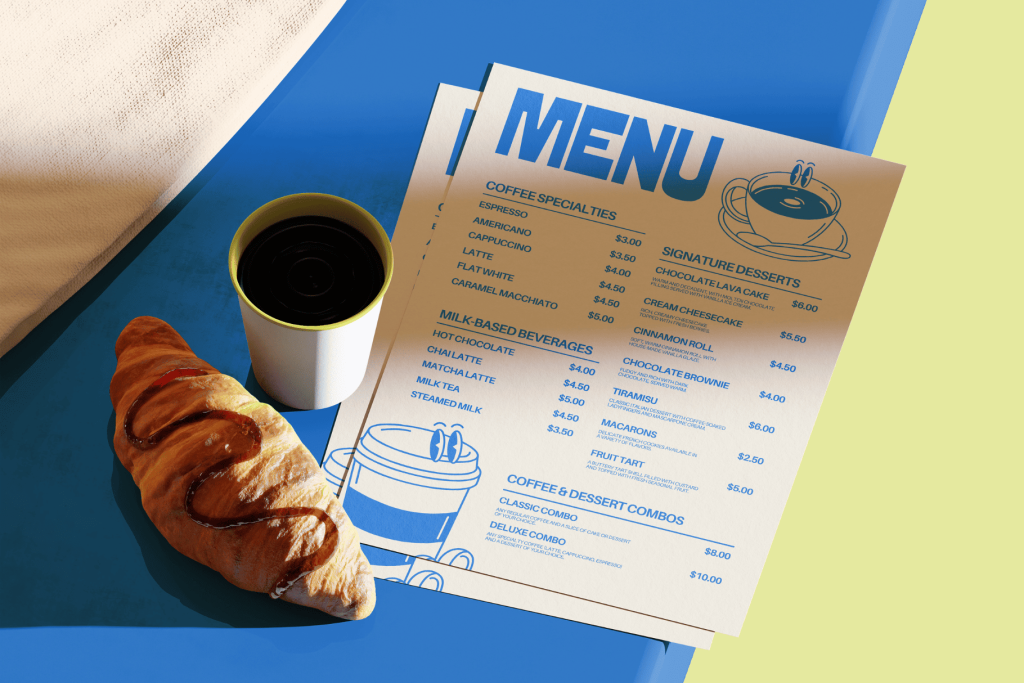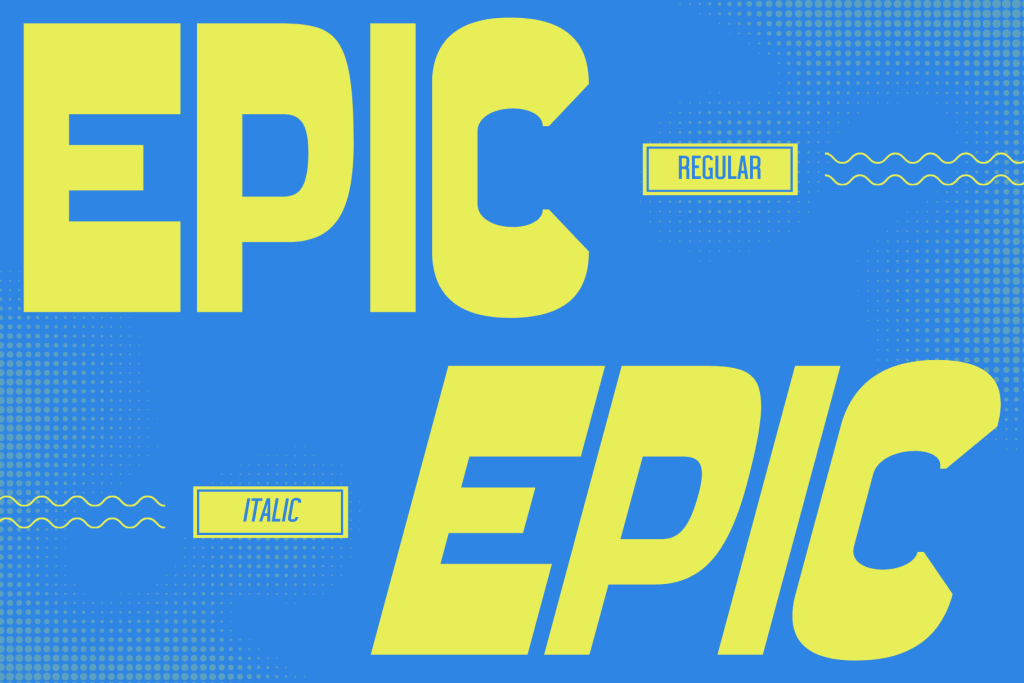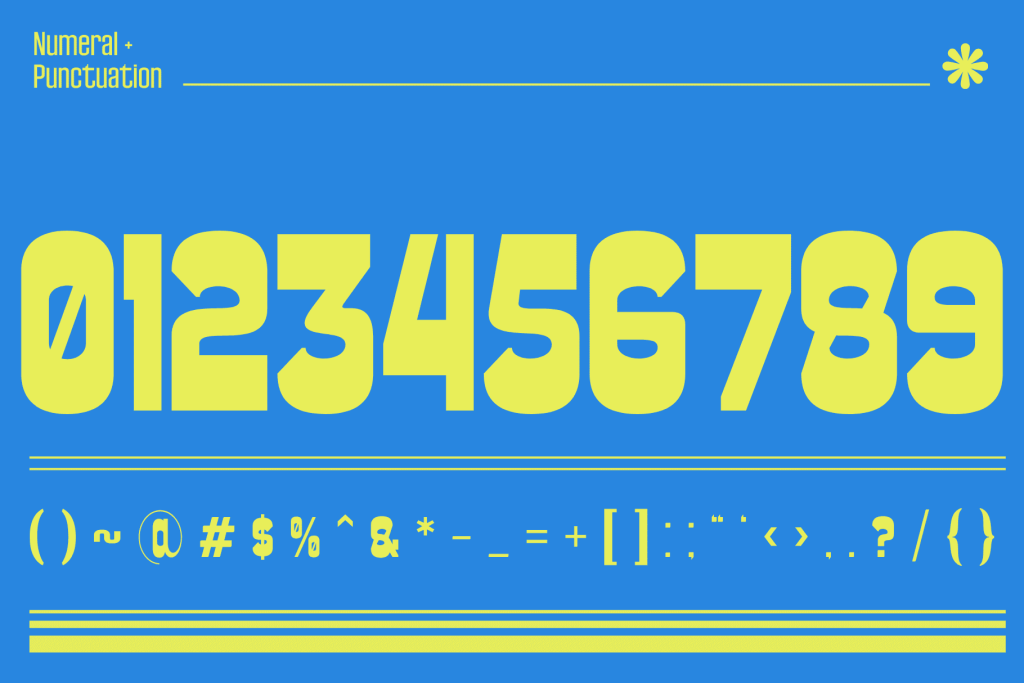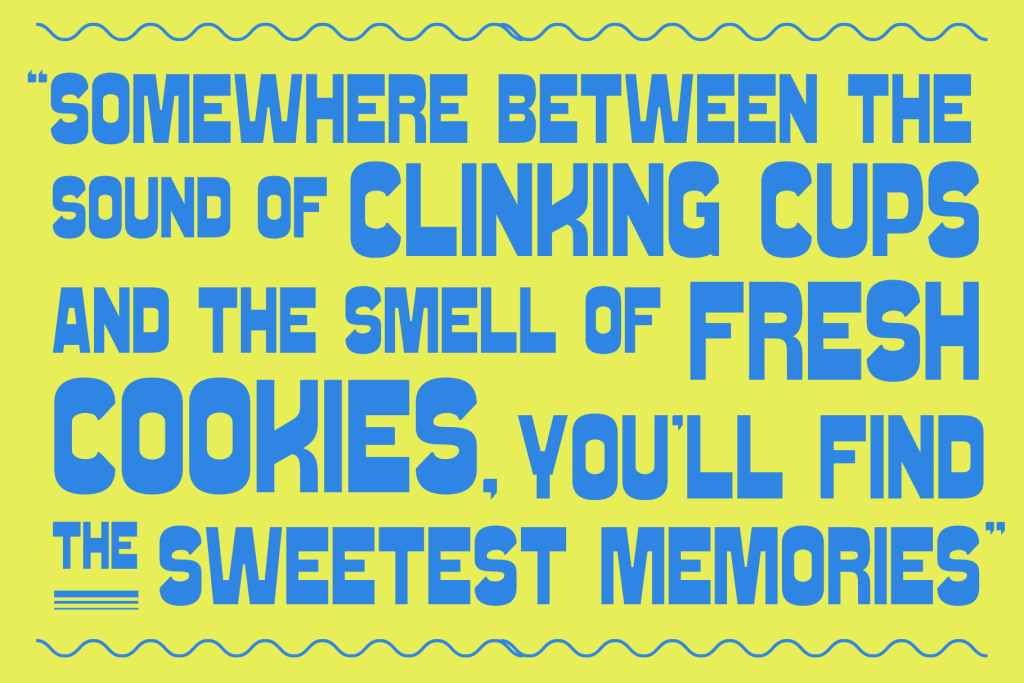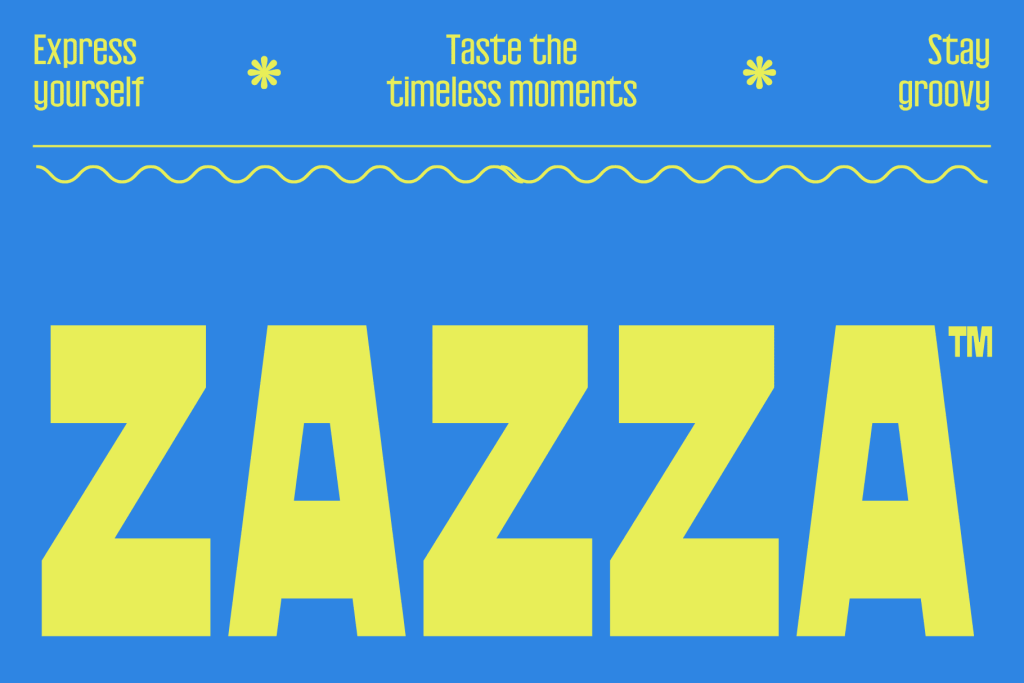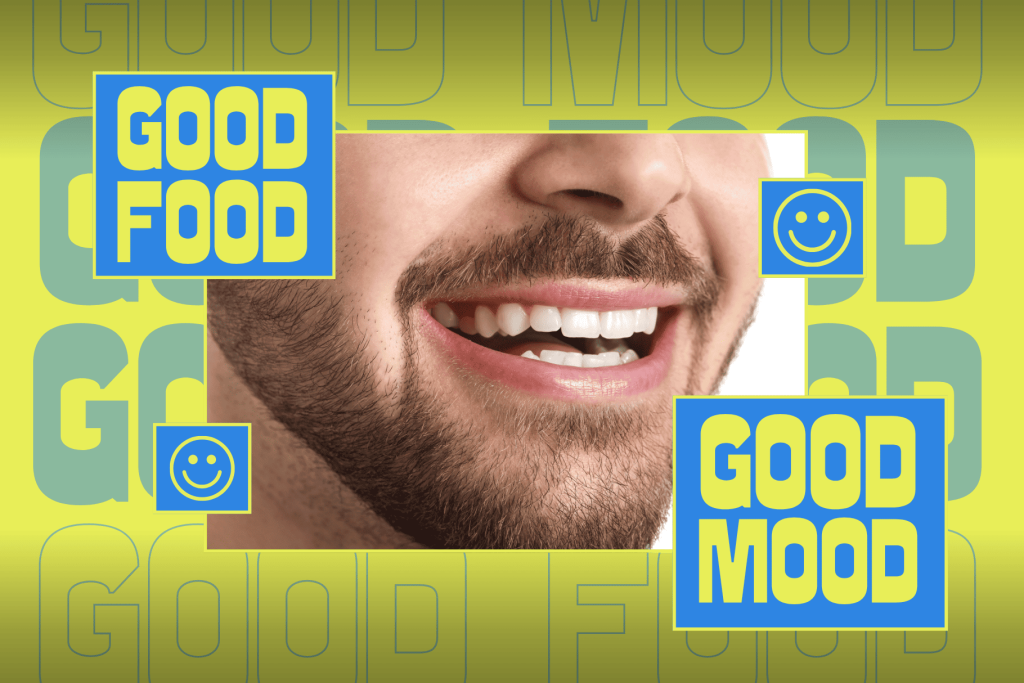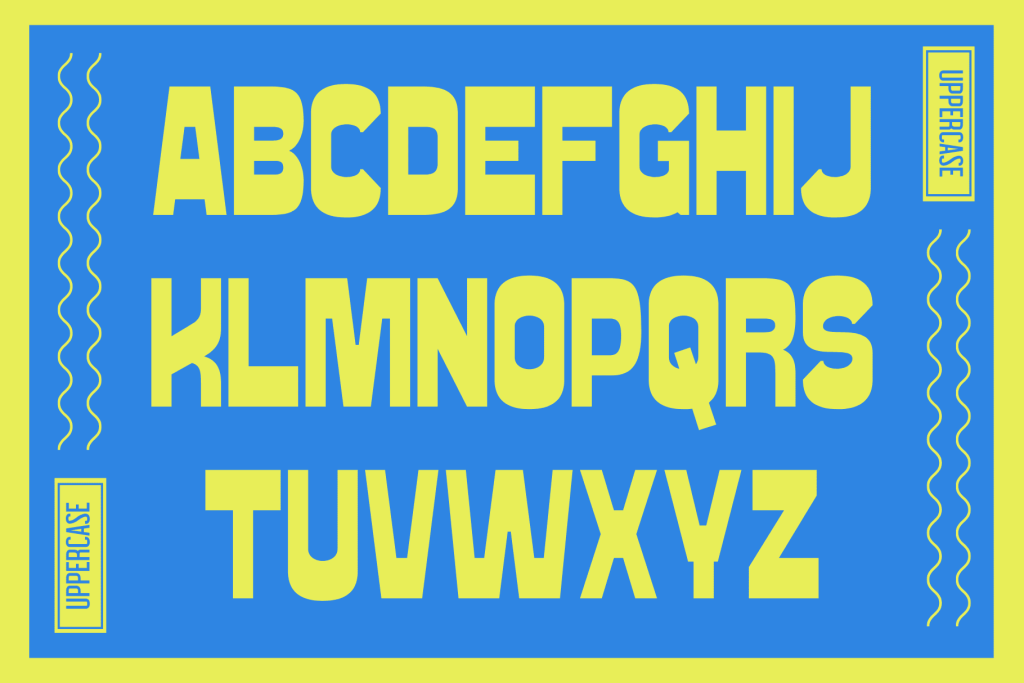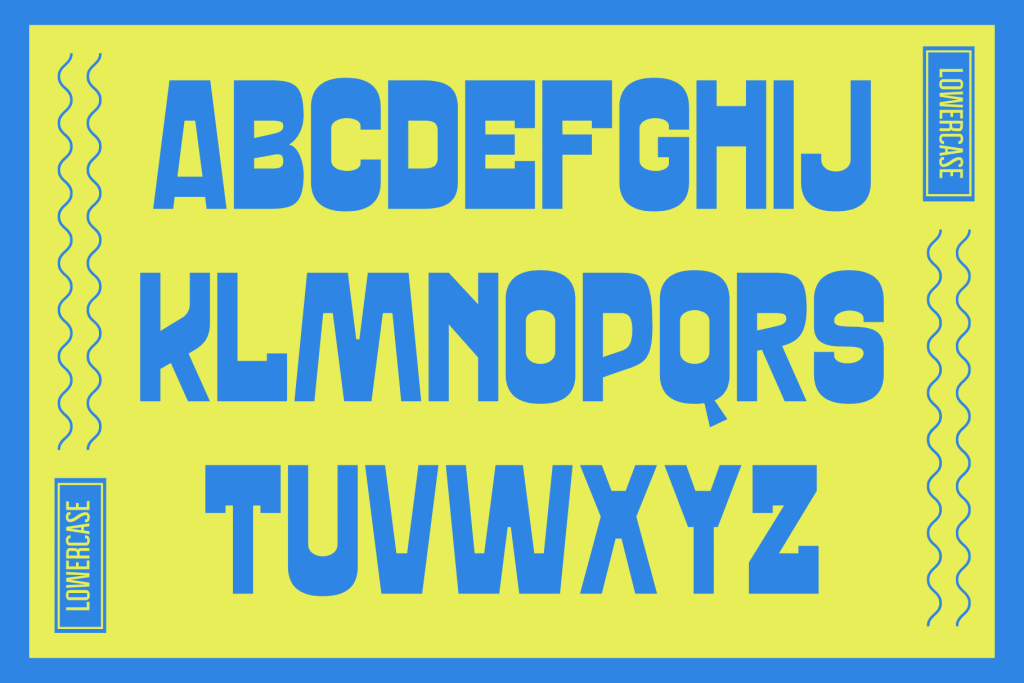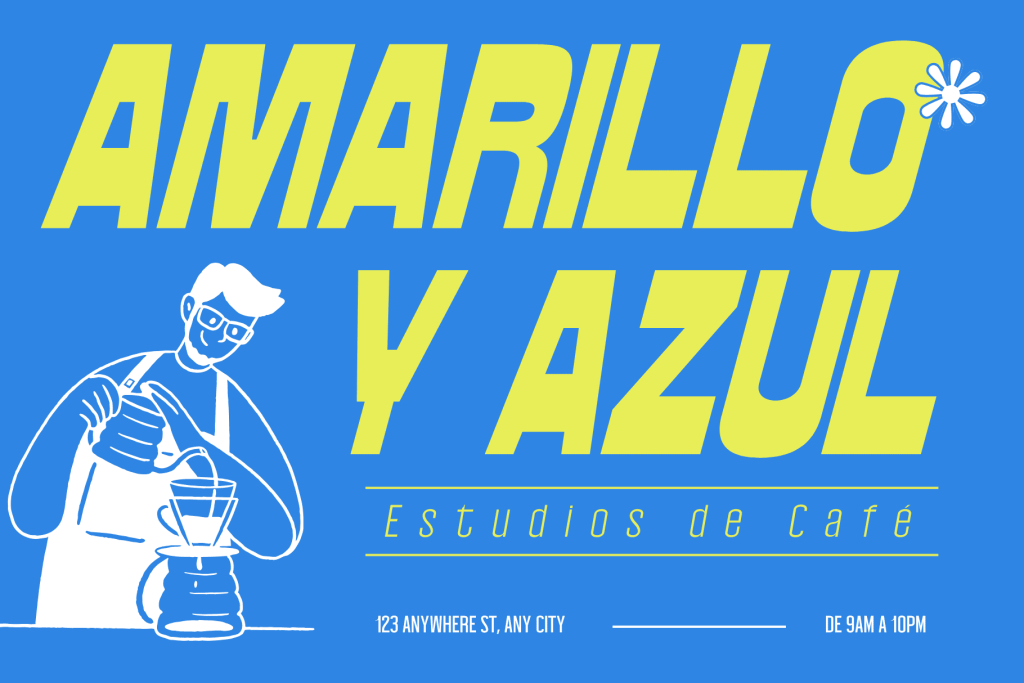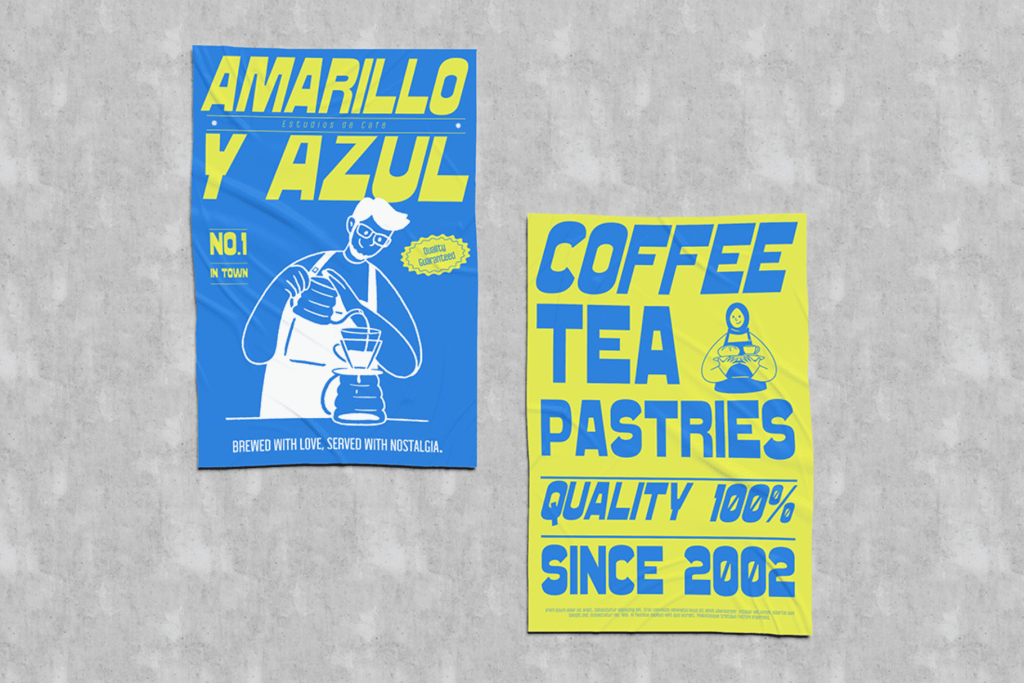
Good Food offers beautiful typographic harmony for a diversity of design projects, including logos & branding, social media posts, advertisements & product designs.